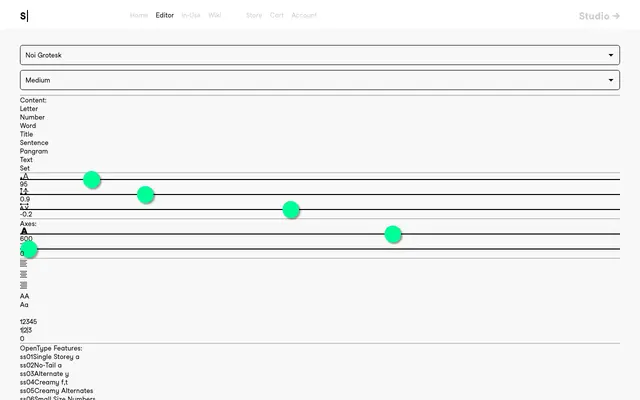
A grotesque sans with eight weights and an unusually rich set of OpenType alternates, including multiple 'a' and 'g' forms, spaghetti alternates and headline letters.
Eight weights from Thin to Black make up the family, supported by a variable axis and an extensive suite of stylistic sets covering single and double storey 'a', alternate 'g', creamy 'f' and 't' forms, square dots, thinner punctuation and headline letter variants. The breadth of OpenType features gives designers fine control over texture and personality across different contexts and sizes. Greek character support extends its reach beyond standard Latin coverage.
The typeface presents as a grotesque sans-serif with a broad range of OpenType alternates including single and double storey 'a', alternate 'g', and contextual features typical of contemporary grotesque designs.